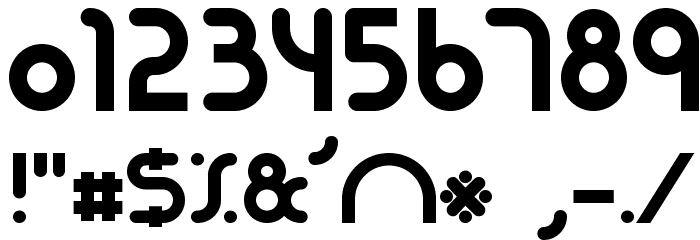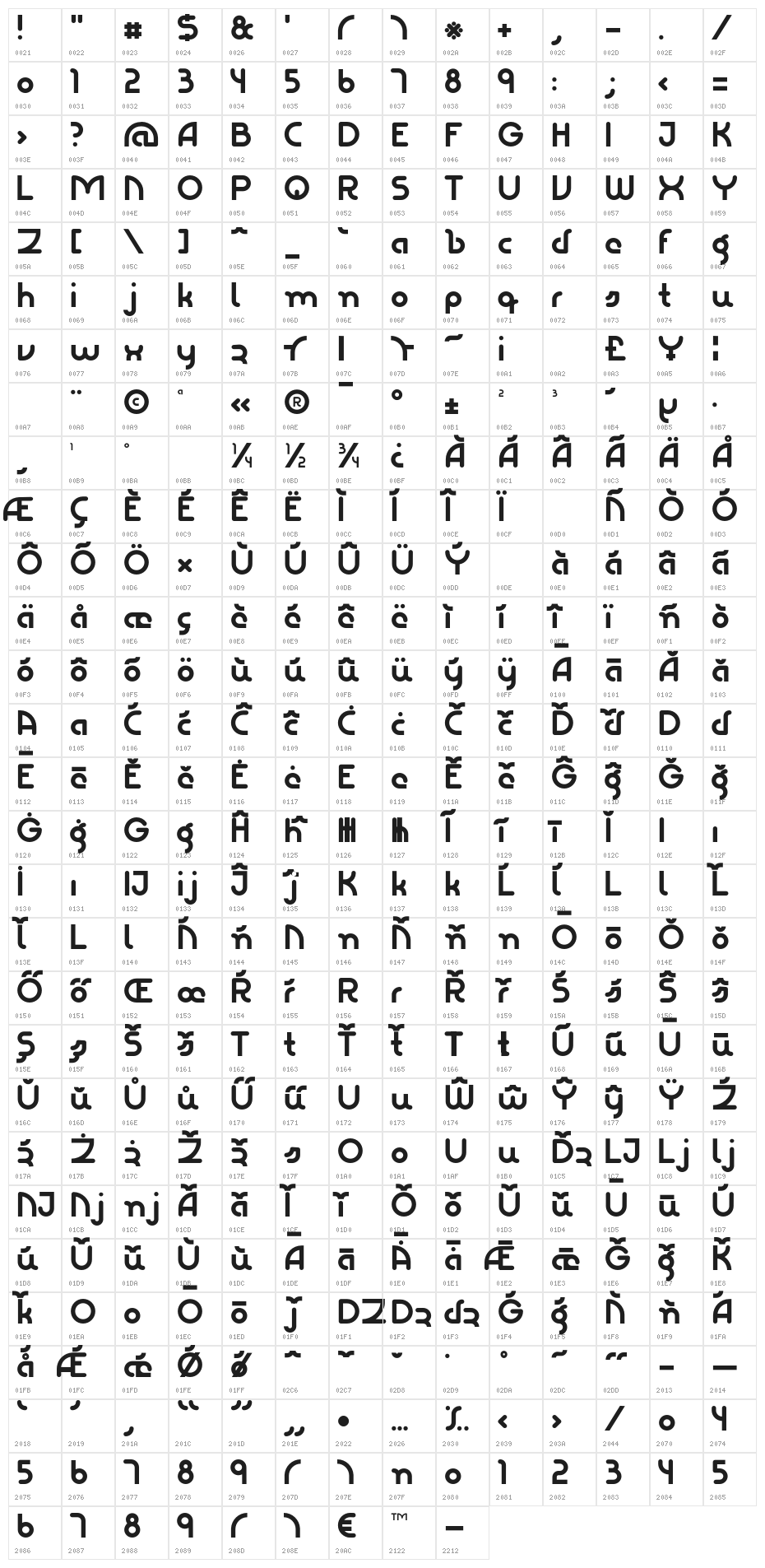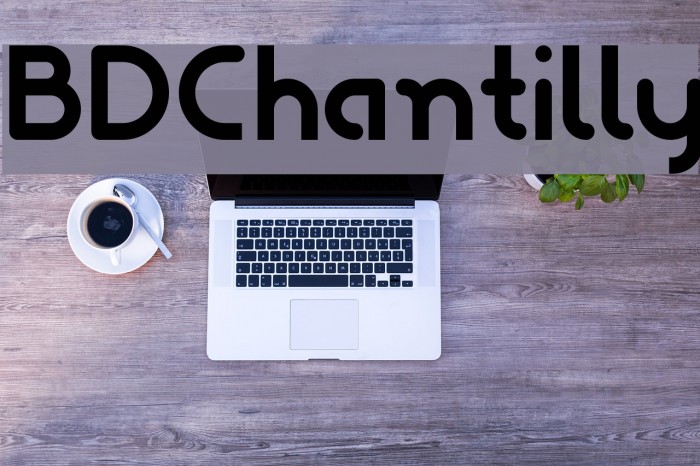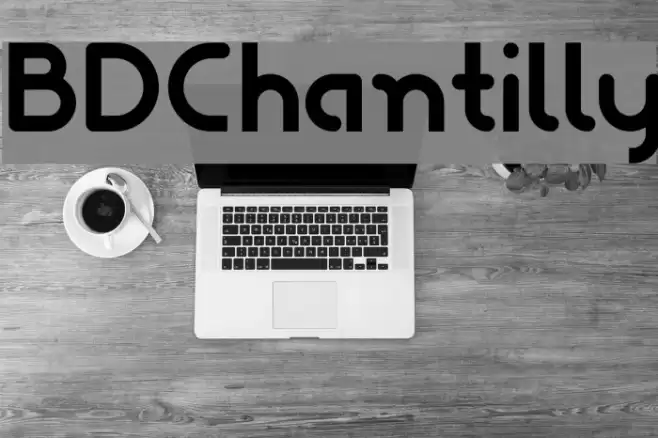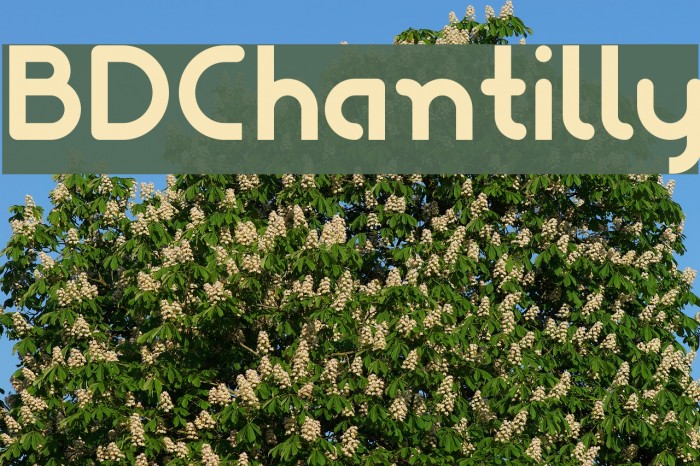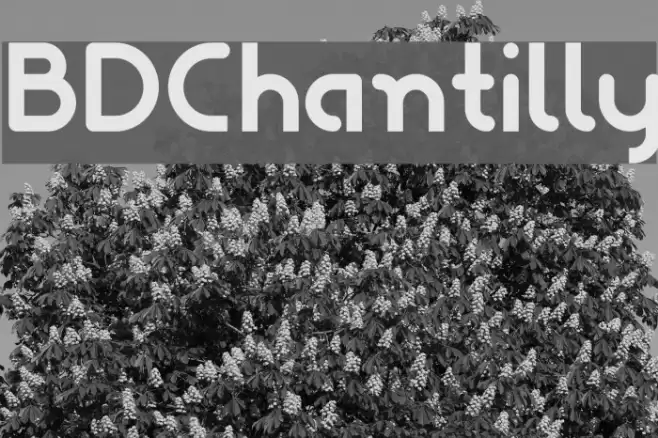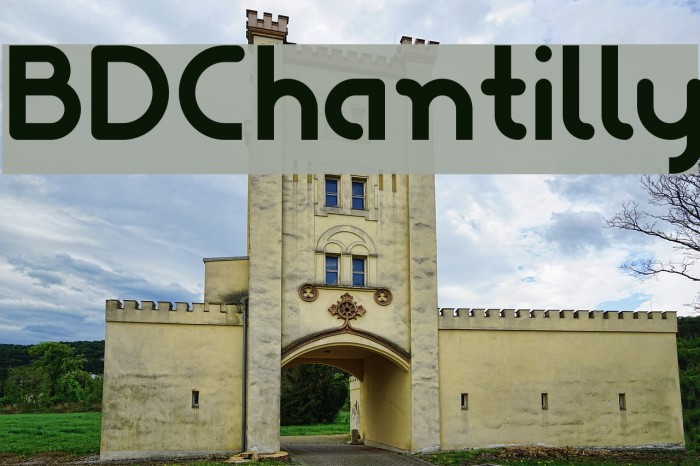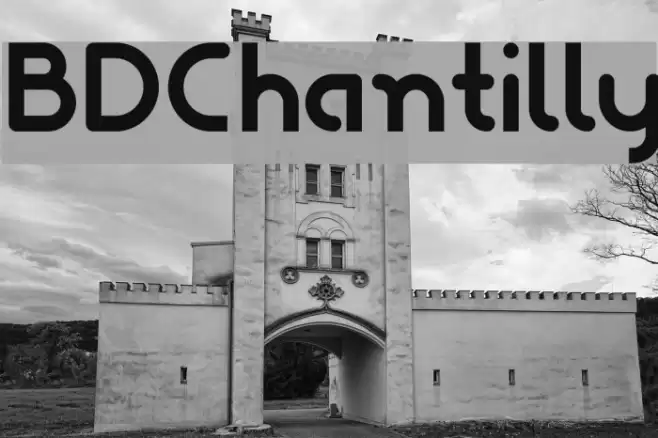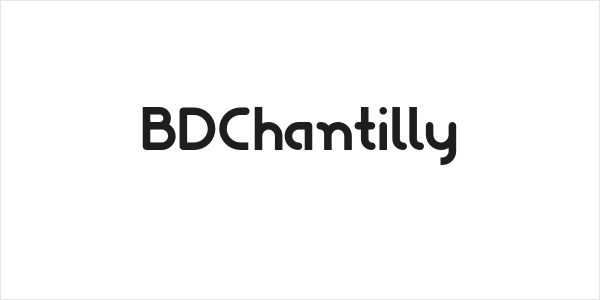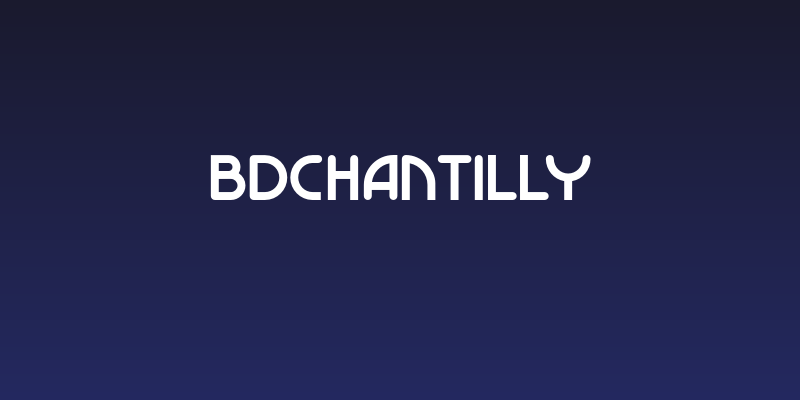
BDChantilly Font
BDChantilly Description
This font features a unique, playful design with rounded edges and a bold presence. The characters are crafted with a modern flair, incorporating smooth curves and a consistent stroke width that gives it a cohesive look. The uppercase letters are distinct with a slight geometric influence, while the lowercase letters maintain a friendly and approachable style. Numbers and special characters follow the same design principles, ensuring uniformity across all glyphs. The font's overall appearance is both contemporary and versatile, making it suitable for a variety of creative applications.